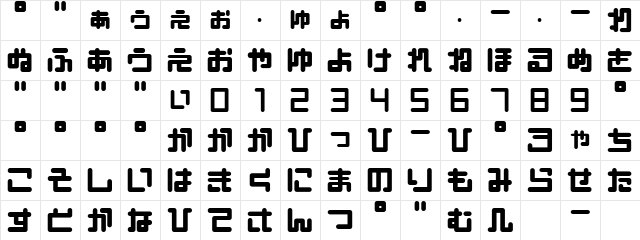
Pinponpan Regular
Design Context for Pinponpan Typeface
Pinponpan offers clean, dependable letterforms without strong stylistic allegiance, making it a practical choice for designers who need flexibility.